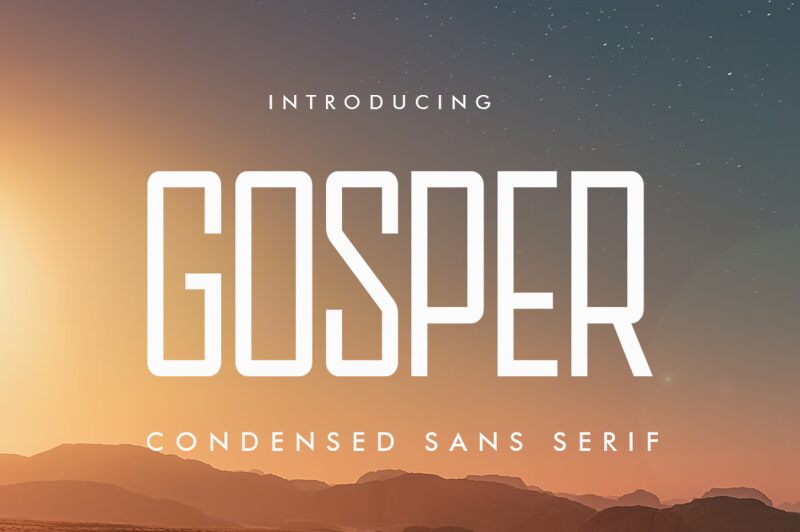
GOSPER
Gosper font by Vultype is a distinctive sans serif with a condensed width, offering a sleek, modern aesthetic. Its structured yet fluid lines create a bold impact, making it an ideal choice for eye-catching headlines and branding projects. The tight spacing and minimalistic design emphasize clarity and sophistication, enhancing visual appeal.
Perfect for designers seeking versatility, Gosper font can be effectively utilized in digital design, print media, and signage. Whether you aim to make a statement on websites or need a striking typeface for advertising campaigns, this free font download provides flexibility and creativity in numerous contexts.
Explore the Gosper font today to elevate your design projects with its unique style.